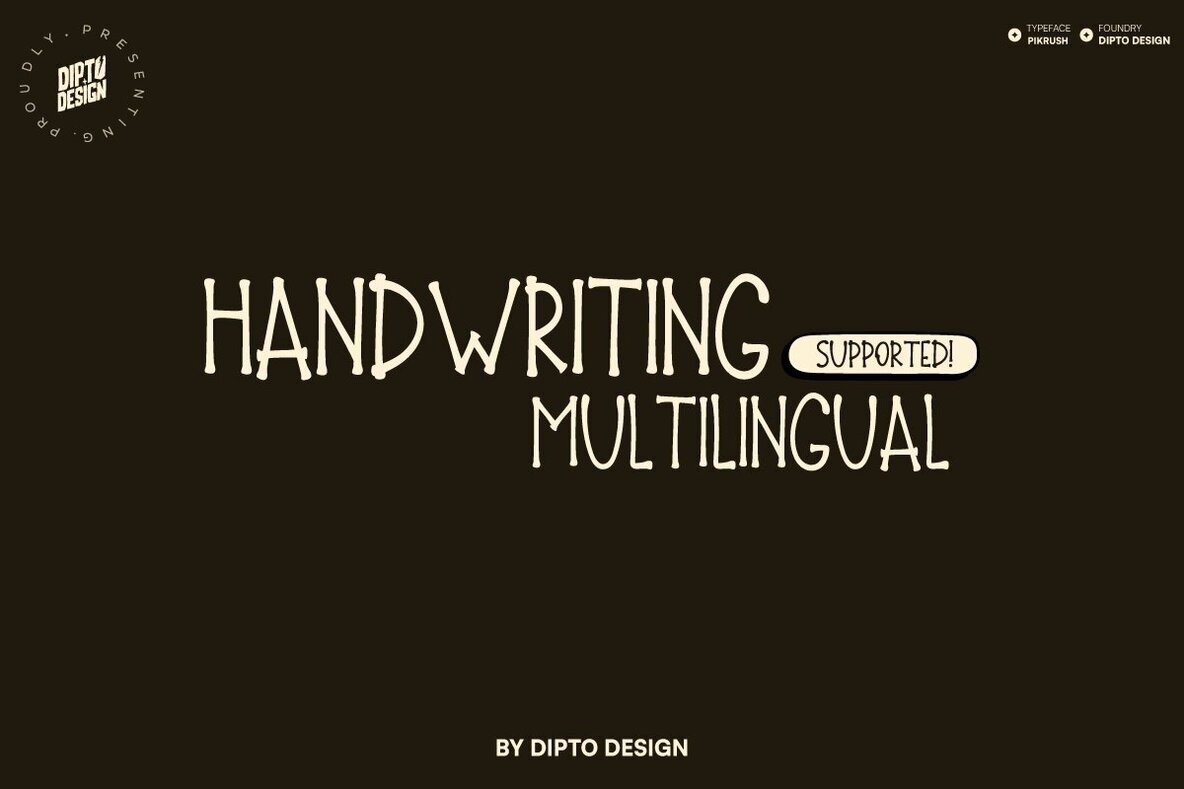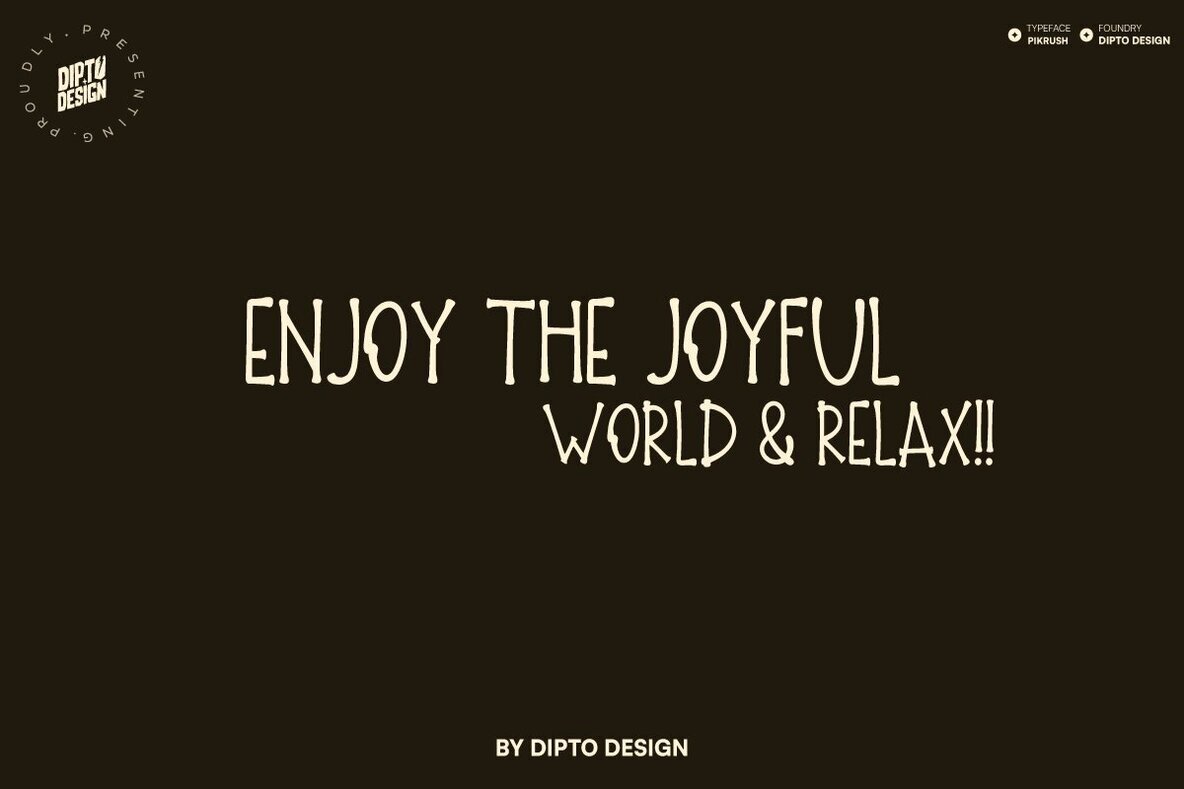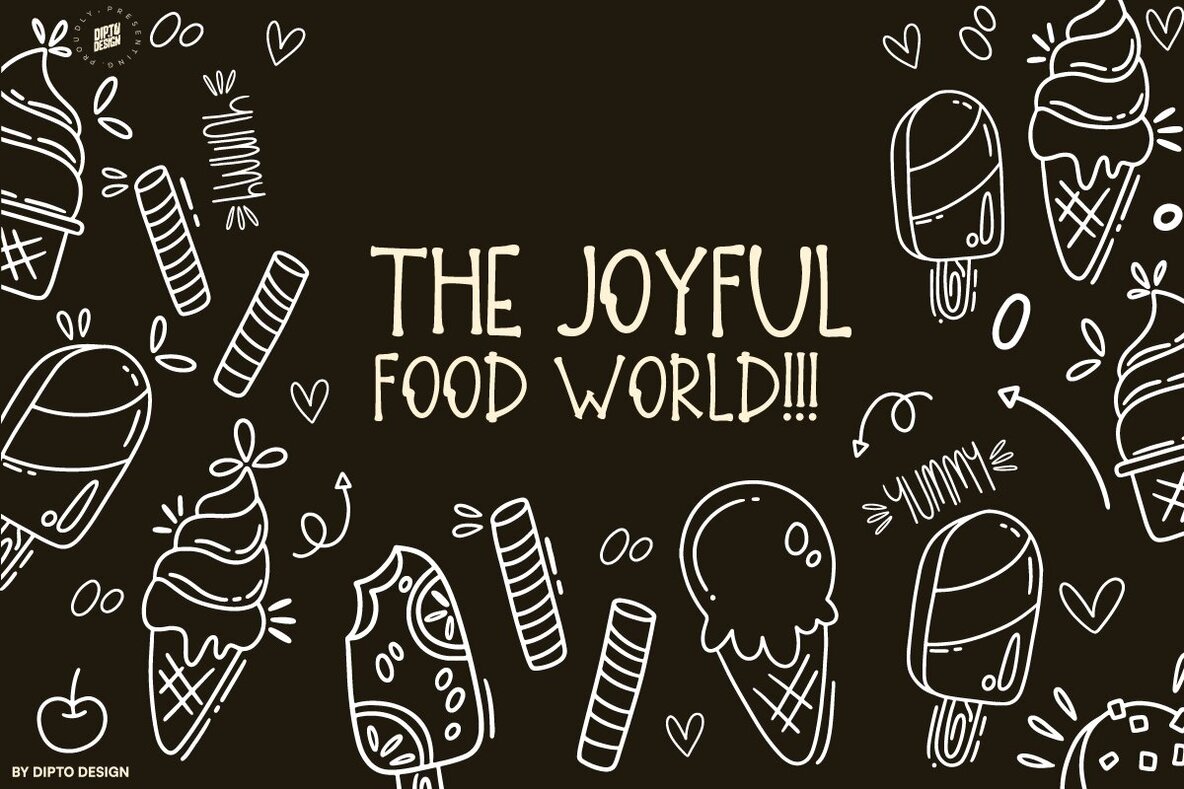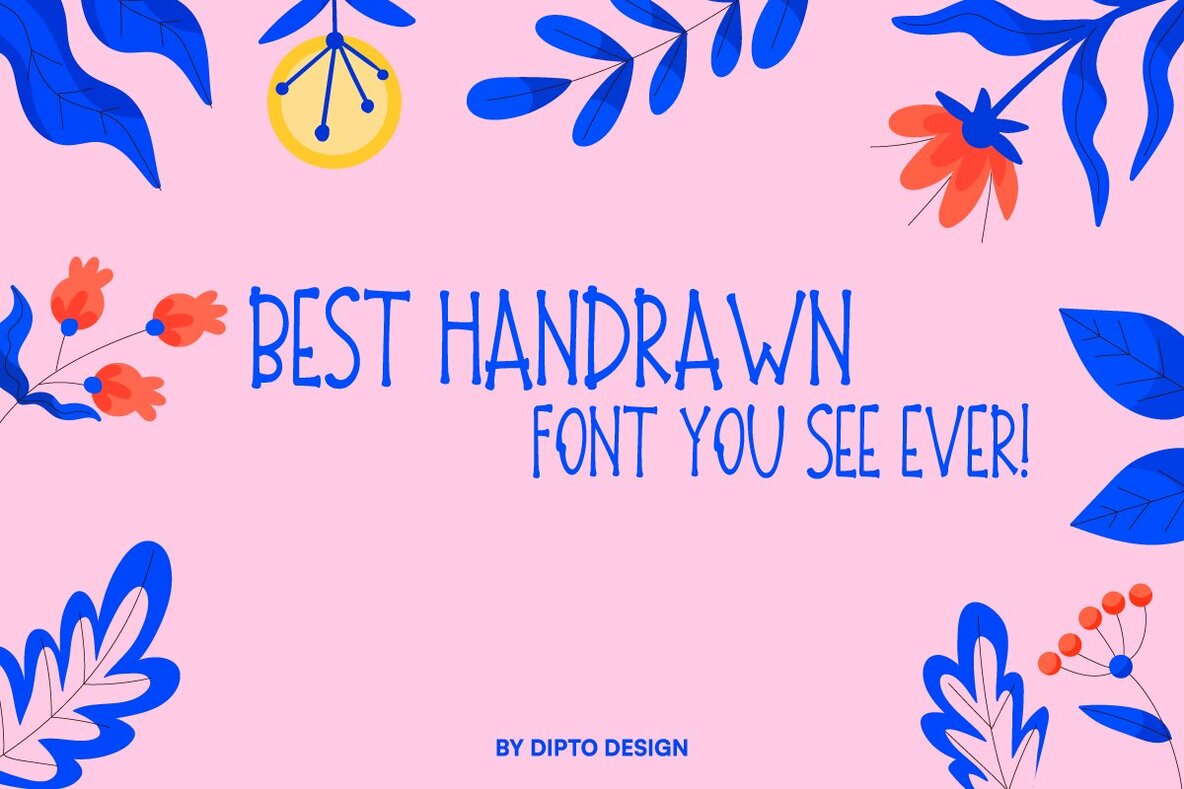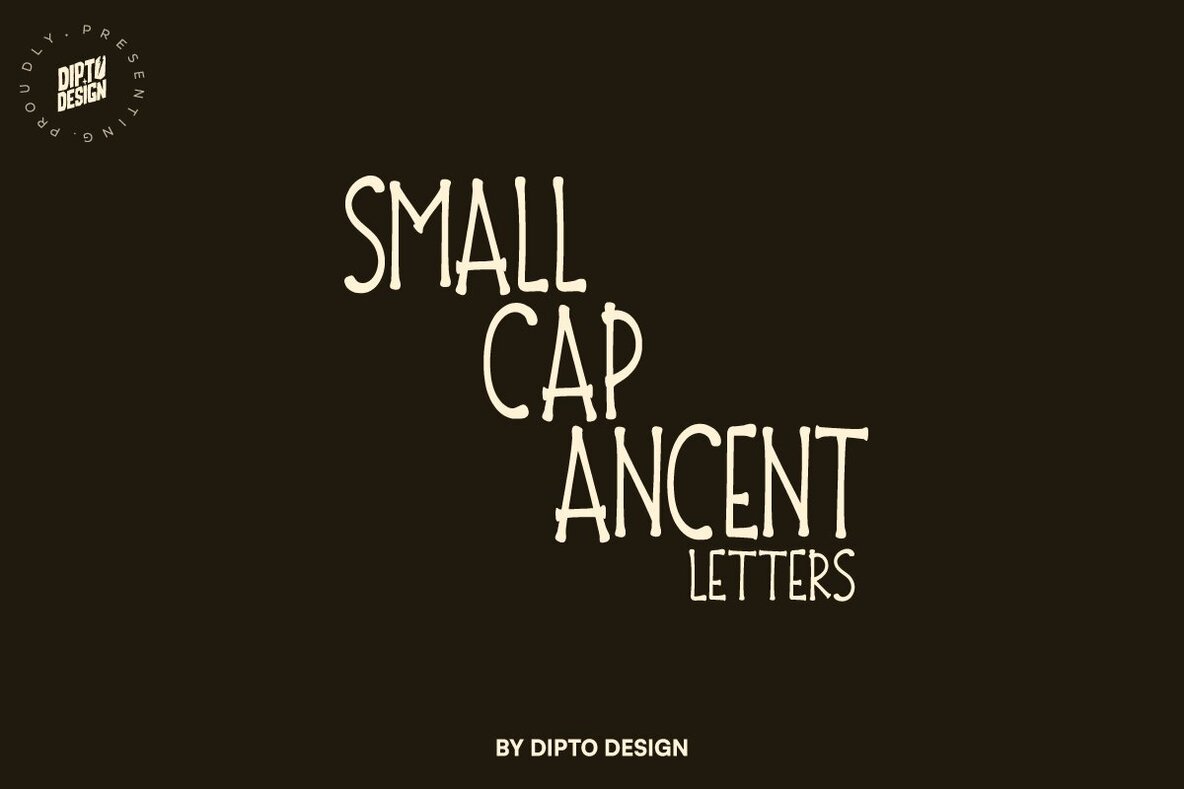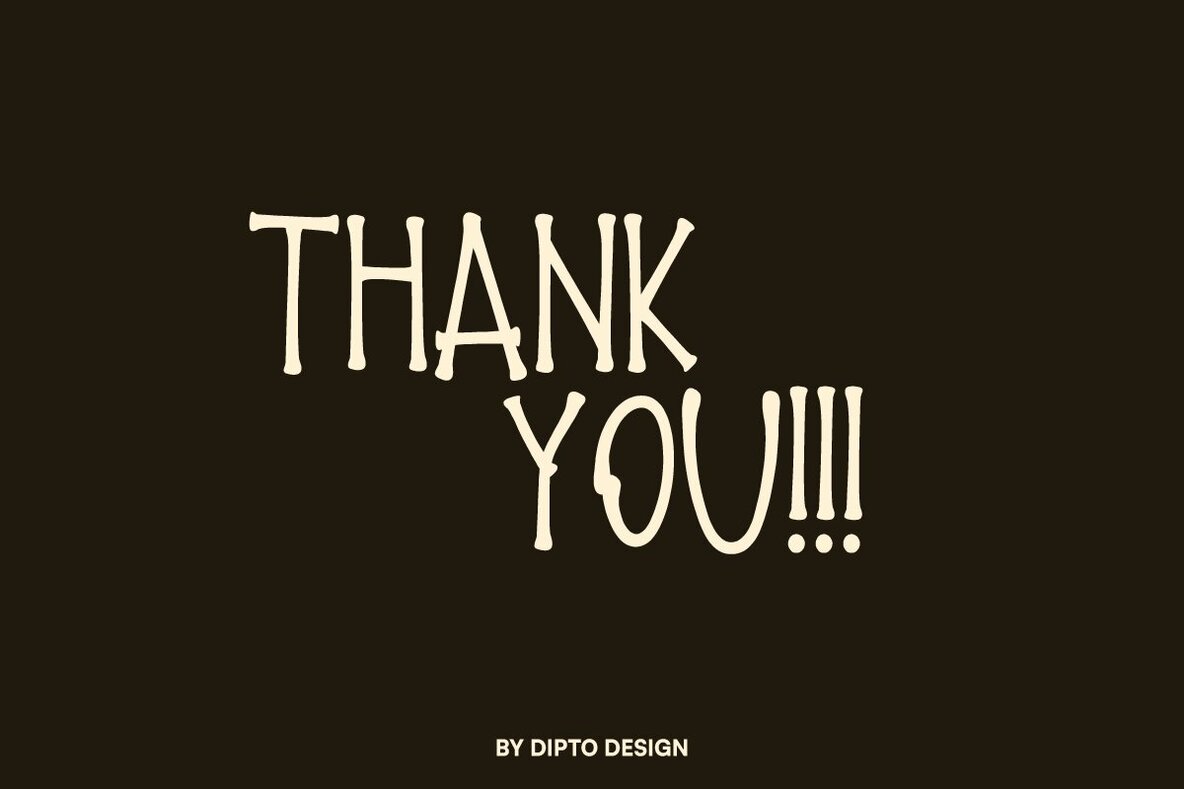
PikRush Font
PikRush
PikRush is a vibrant handwriting font that exudes spontaneity, perfect for stylish branding endeavors. Its dynamic energy allows you to personalize your designs with ease, adding a lively touch to any project. Whether you're crafting branding materials, apparel, or digital assets, PikRush provides the versatility and authenticity needed to enhance your creative projects.PikRush: Vibrant Handwriting Font by Dipto Design
Design Applications